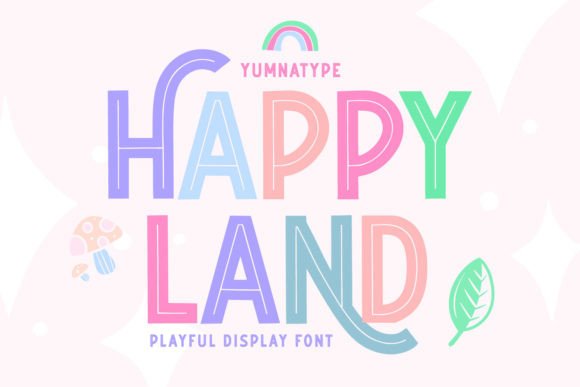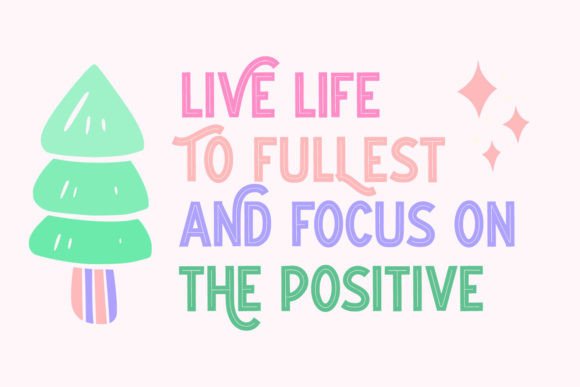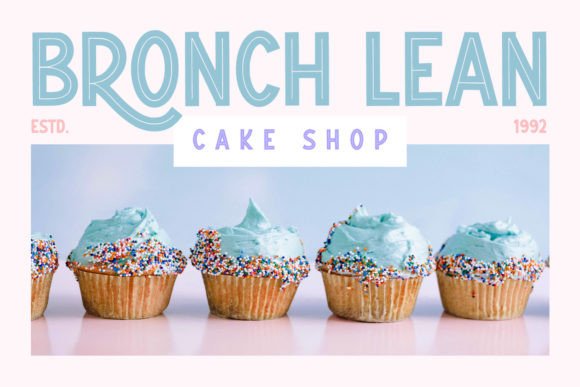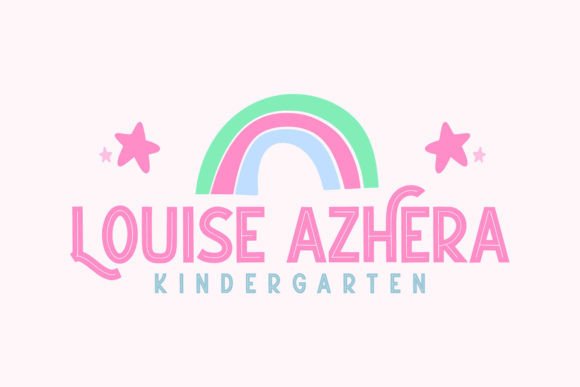
Happy Land Font: A Playful Display Font for Cute & Creative Designs!
About the Happy Land Font
From logos to headlines, the Happy Land Font is the perfect choice for making a lasting impression. It can be a real challenge to deliver messages through designs due to the very ordinary display fonts lacking prominent characters. Happy Land is a prominent display font ready to add firm touches to any of your designs. The all-capital letter can enhance certain effects on your designs. The font’s simple shapes with strong contrasts affect the legibility.
Happy Land’s strong contrasts and bold forms make it ideal for headlines, posters, and short impactful branding elements. Its all-caps nature lends itself well to logos and packaging where a powerful, concise message is key. However, the limited character set and prominent weight make it unsuitable for body text or lengthy paragraphs; legibility suffers at smaller sizes.
The font’s personality is confident and friendly, bordering on playful. It works best for brands projecting energy and optimism—think children’s products, casual clothing lines, or entertainment companies. Avoid pairing it with overly ornate scripts; instead, consider a clean sans-serif like Open Sans or a geometric sans-serif like Futura for a modern feel. A neutral serif such as Garamond could also offer pleasing contrast.
For a more playful look, explore pairings with rounded sans-serif fonts. The key is maintaining contrast to ensure legibility and visual harmony; Happy Land’s bold presence should remain the focal point.
Happy Land Font Usage Examples
Happy Land Font Example